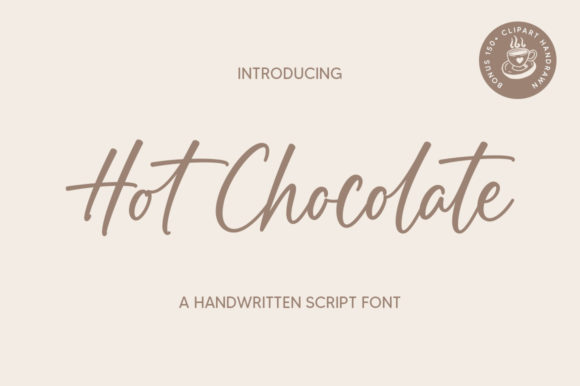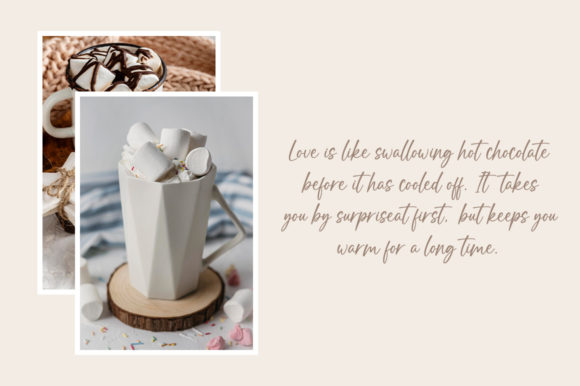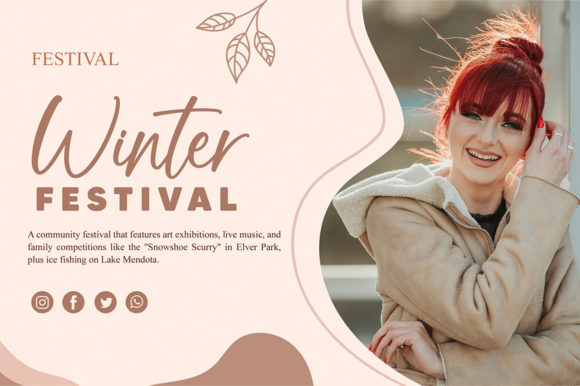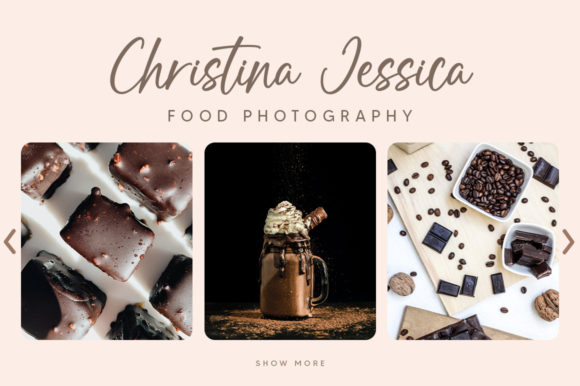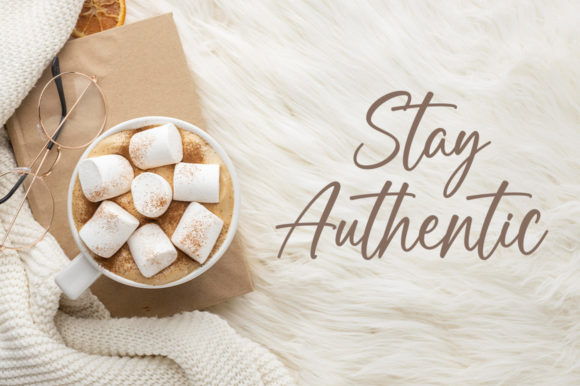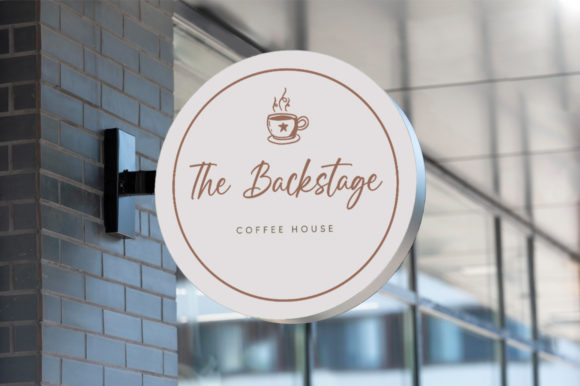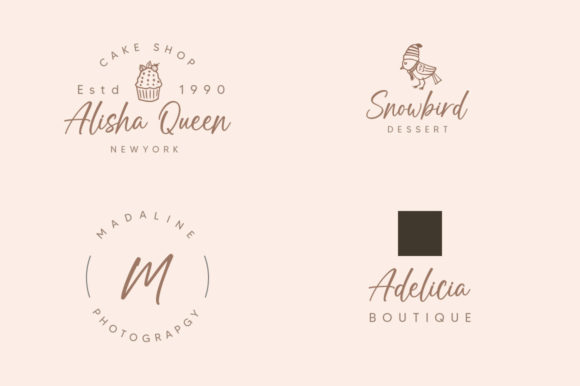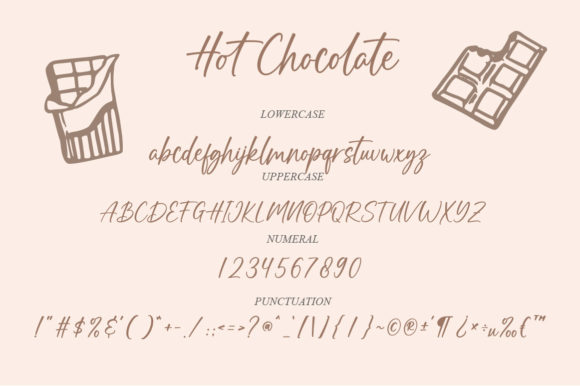
Hot Chocolate Font
About Hot Chocolate Font
Hot Chocolate feels equally charming and elegant. It looks stunning on wedding invitations, thank you cards, quotes, greeting cards, logos, business cards and every other design which needs a handwritten touch.